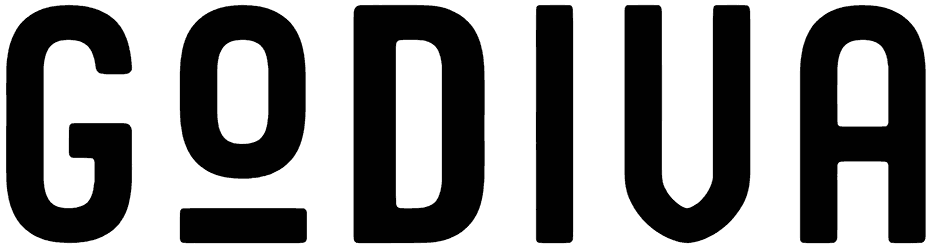
Godiva Font
Customize your project’s words with this sans serif font to give it a modern and specific visual. The Godiva font doesn’t cover lowercase letters, but it has two styles for some capitals. You can apply this industrial fo…
Customize your project’s words with this sans serif font to give it a modern and specific visual. The Godiva font doesn’t cover lowercase letters, but it has two styles for some capitals. You can apply this industrial font to your innovative designs, such as an airline advertisement, and leave a lasting impact on observers.